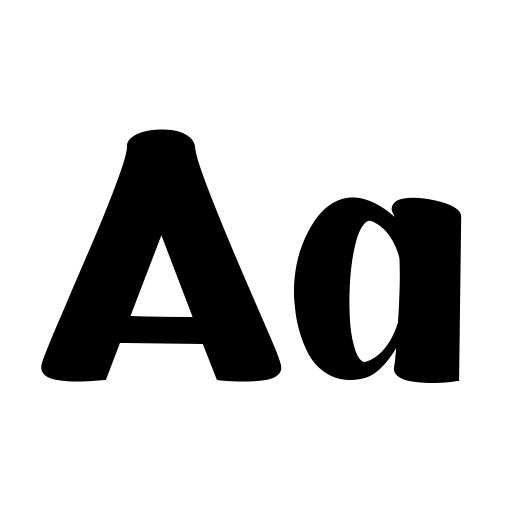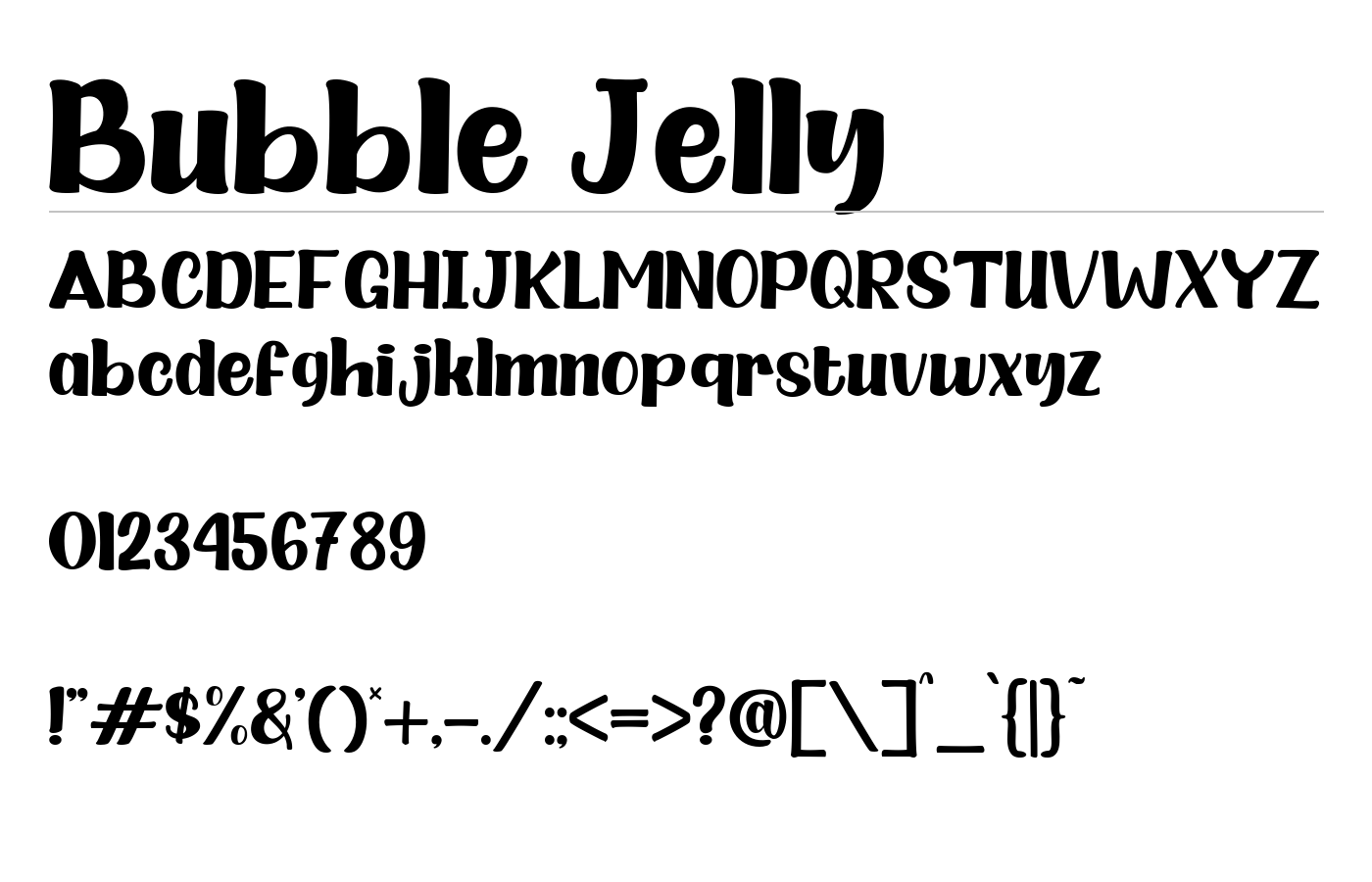
Bubble Jelly is a playful and friendly sans serif font characterized by its bold weight and rounded, bubbly letterforms that convey warmth and cheerfulness. Its generous x-height and slightly condensed width make it highly legible, while the smooth, thick strokes and whimsical details add a fun, informal personality perfect for children’s content, casual branding, and eye-catching headlines. This font works best in creative, lighthearted designs where approachability and charm are key.
Bubble Jelly Font
About Bubble Jelly Font
| Font family | Bubble Jelly Font |
| Designer | Andri Ardianto + Madatype Studio |